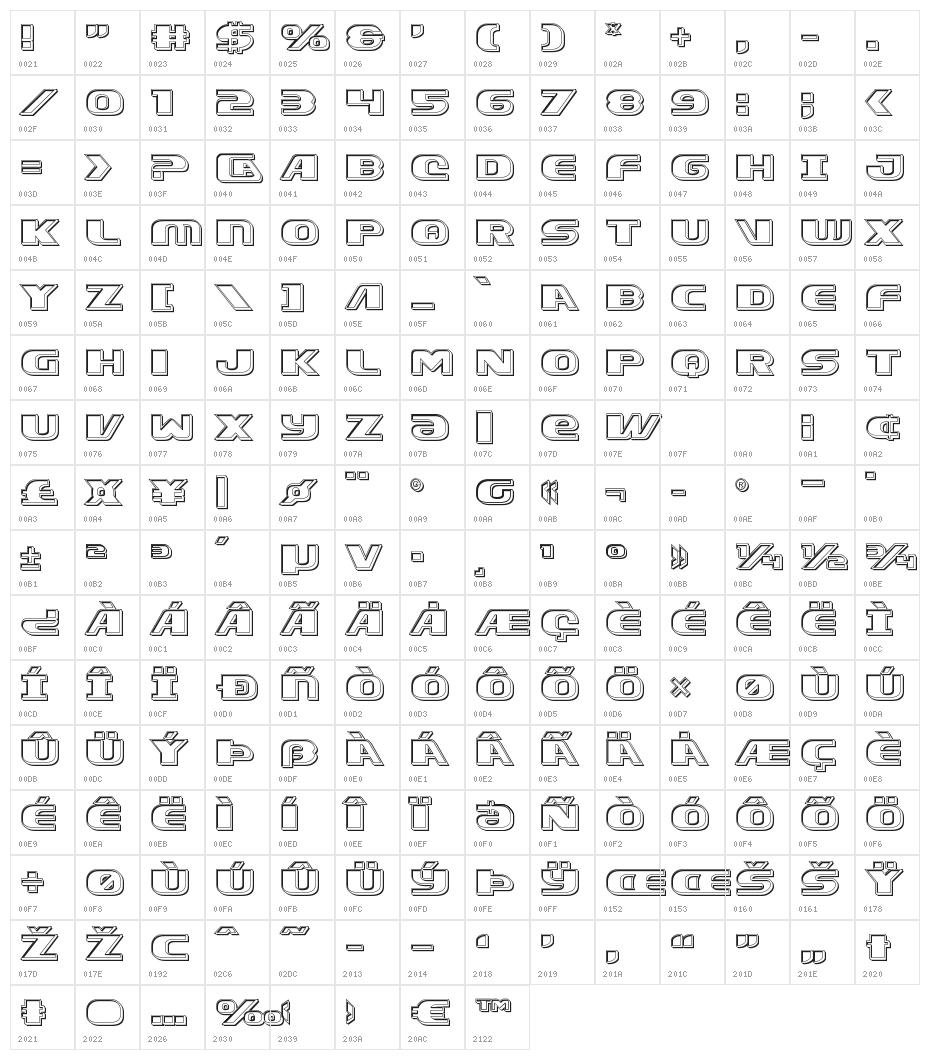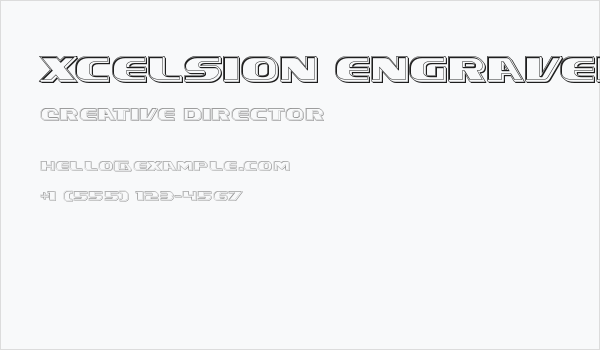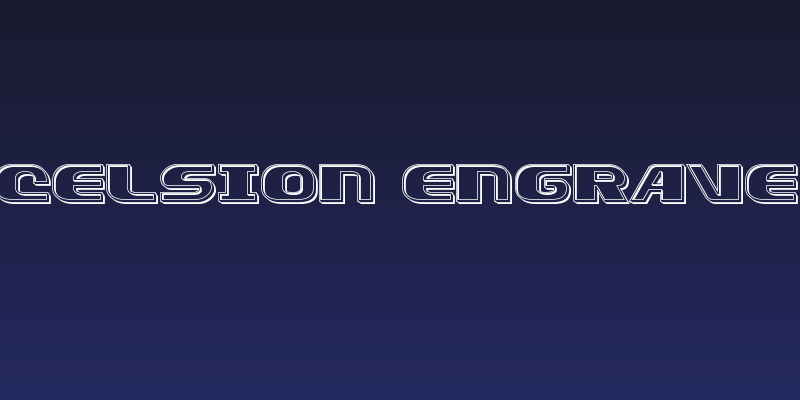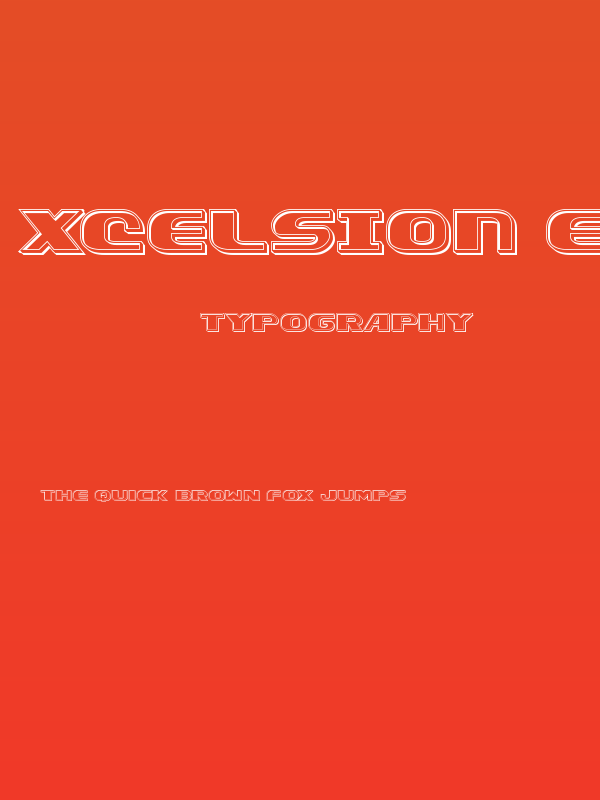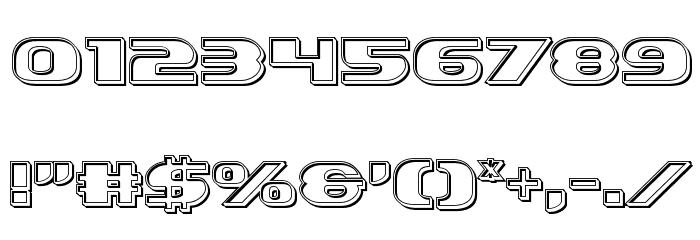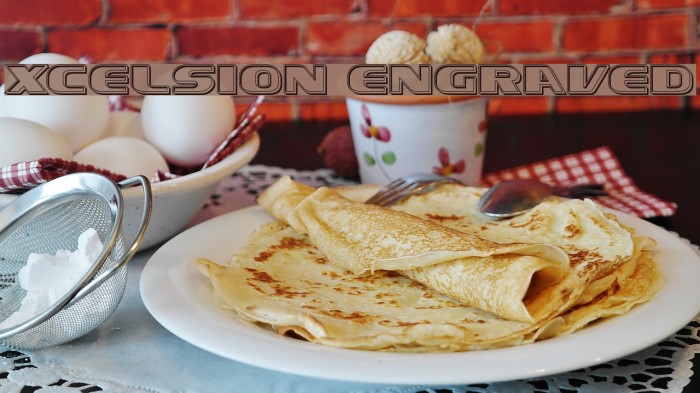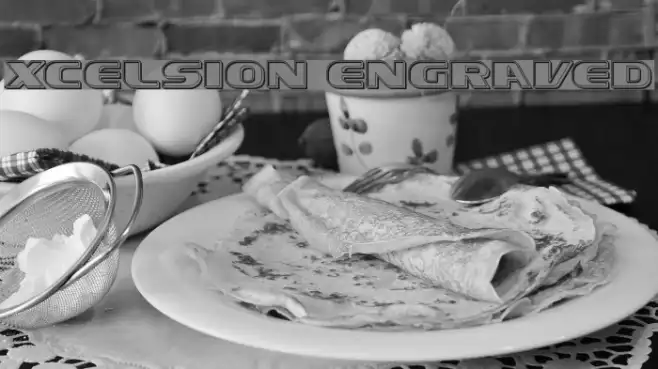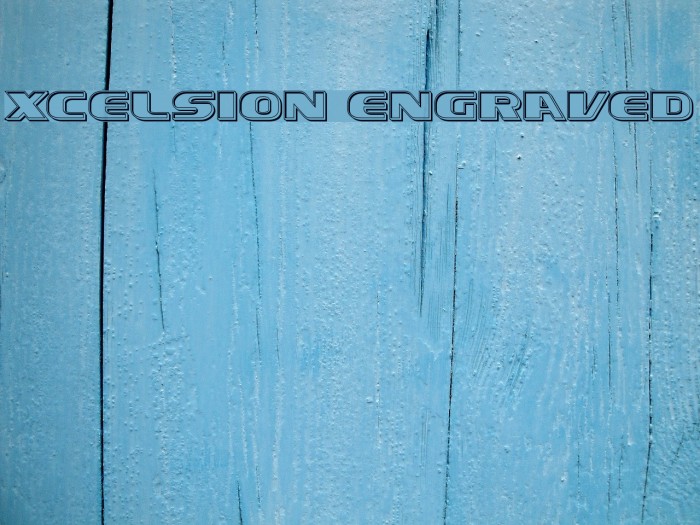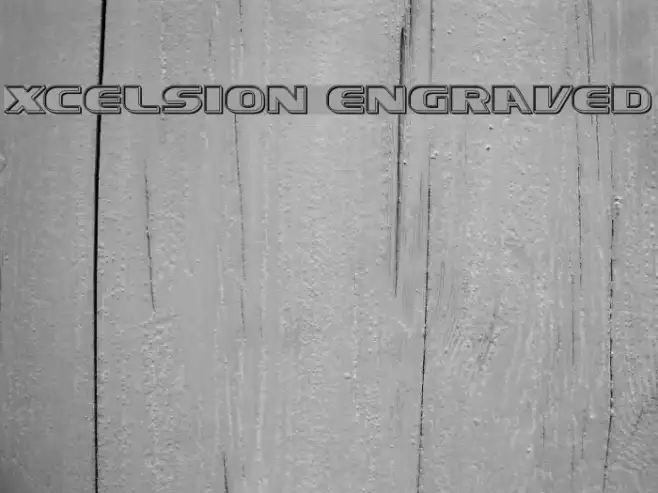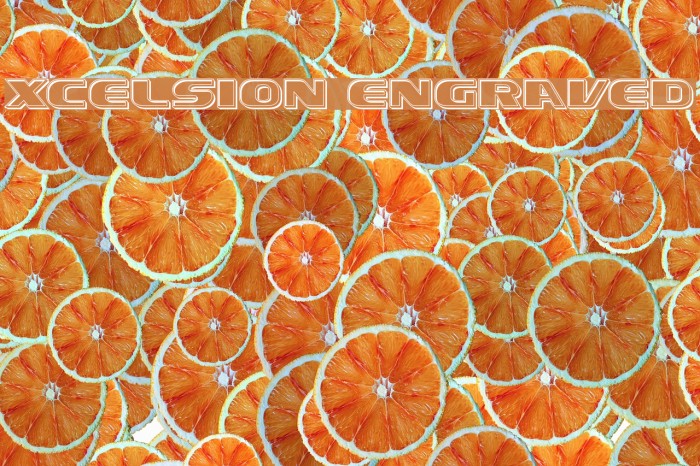
Xcelsion Engraved Font
Xcelsion Engraved Description
This font features a bold and futuristic design with an engraved style that gives it a three-dimensional appearance. The characters are outlined with a double line, creating a sense of depth and intricacy. The geometric shapes and sharp angles contribute to its modern and tech-inspired look. The uppercase and lowercase letters maintain a consistent style, while the numerals and special characters are designed to match the overall aesthetic. This font is ideal for projects that require a standout, eye-catching typeface with a modern edge.
XCELSION-ENGRAVED UPPERCASE
XCELSION-ENGRAVED LOWERCASE
XCELSION-ENGRAVED OTHER CHARS
| Proposed Projects | Ideal for technology branding, sci-fi movie posters, video game titles, and futuristic event invitations. |